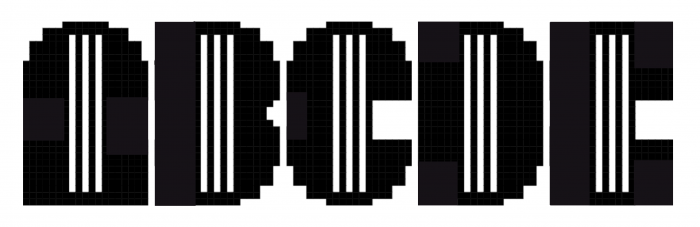
Interesting concept. It will be easy to build the uppercase from here (I add a pict). And don't forget the sample.
Oops, sorry, forget about the last point. I hadn't seen your complete font.
honetly i like your sample! i made an alt version of my ext font with your pict! here